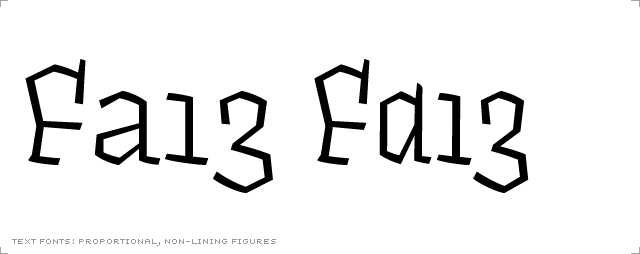
Fakir Regular
Fakir Italic
Fakir Black
Fakir Black Italic
proportional, non-lining figures
Fakir Small Caps
monospaced, lining figures for setting tables
monetary and mathematical signs have the same width as figures
Fakir Display Regular
Fakir Display Regular Cnd
Fakir Display Black
Fakir Display Black Cnd
Fakir Display Small Caps
proportional, lining figures